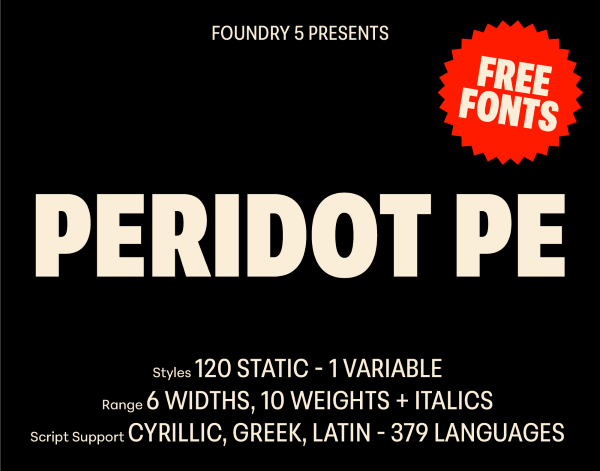
Peridot Font
Peridot by Foundry5 is a multifaceted sans-serif font — 120 static fonts across 10 weights, 6 widths, slanted italics, and a coveted variable font format, all designed by Pria Ravichandran and Kostas Bartsokas with meticulous attention to typographic personality. Supporting Latin, Greek, and Cyrillic scripts across 370+ languages, with tabular numerals, currency symbols, fractions, discretionary ligatures, and multiple stylistic sets, Peridot is a gem that performs equally in branding, editorial, corporate, advertising, web, and screen contexts. A free demo is available for personal use to let designers experience its character before committing to the full family.